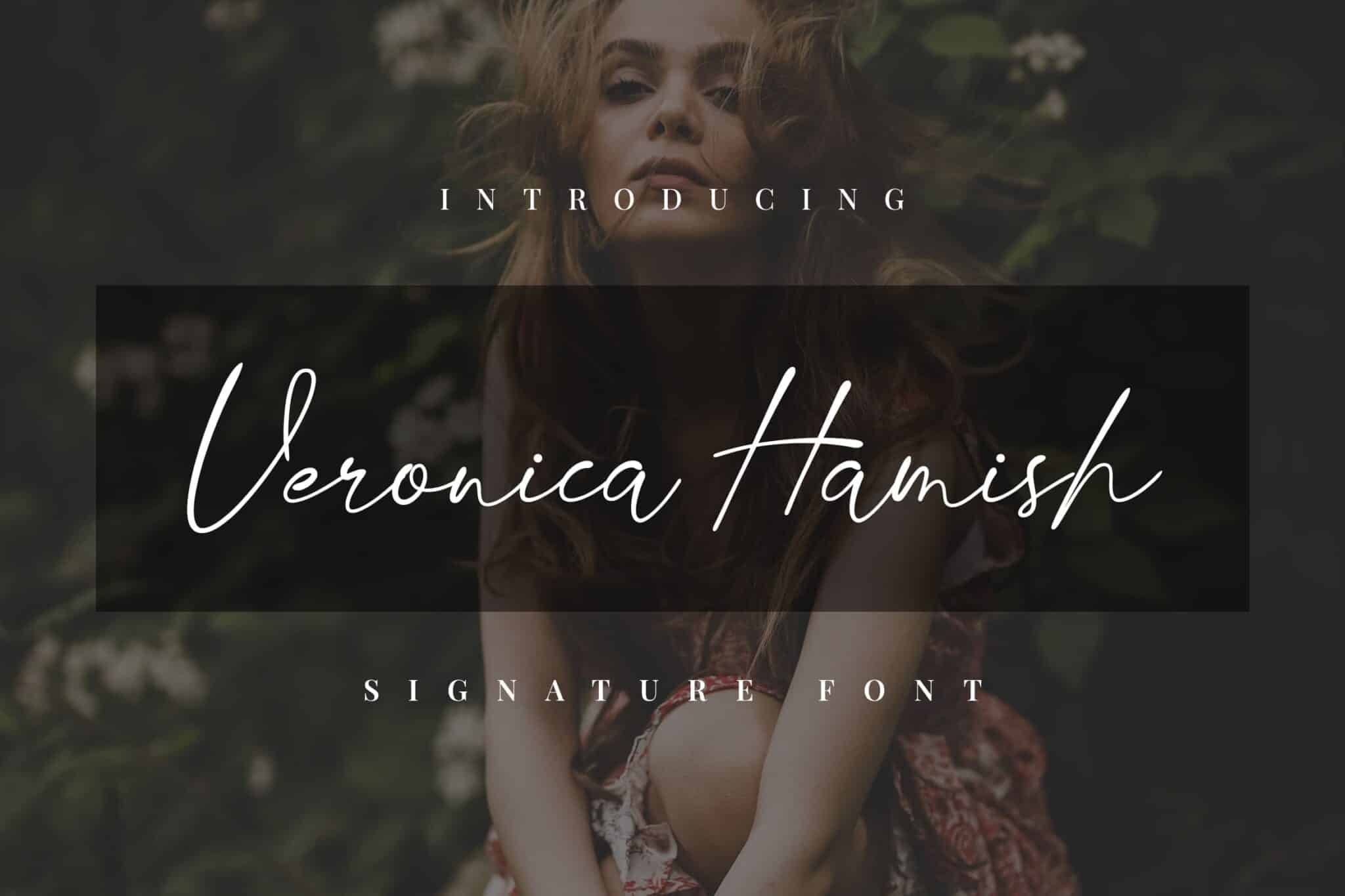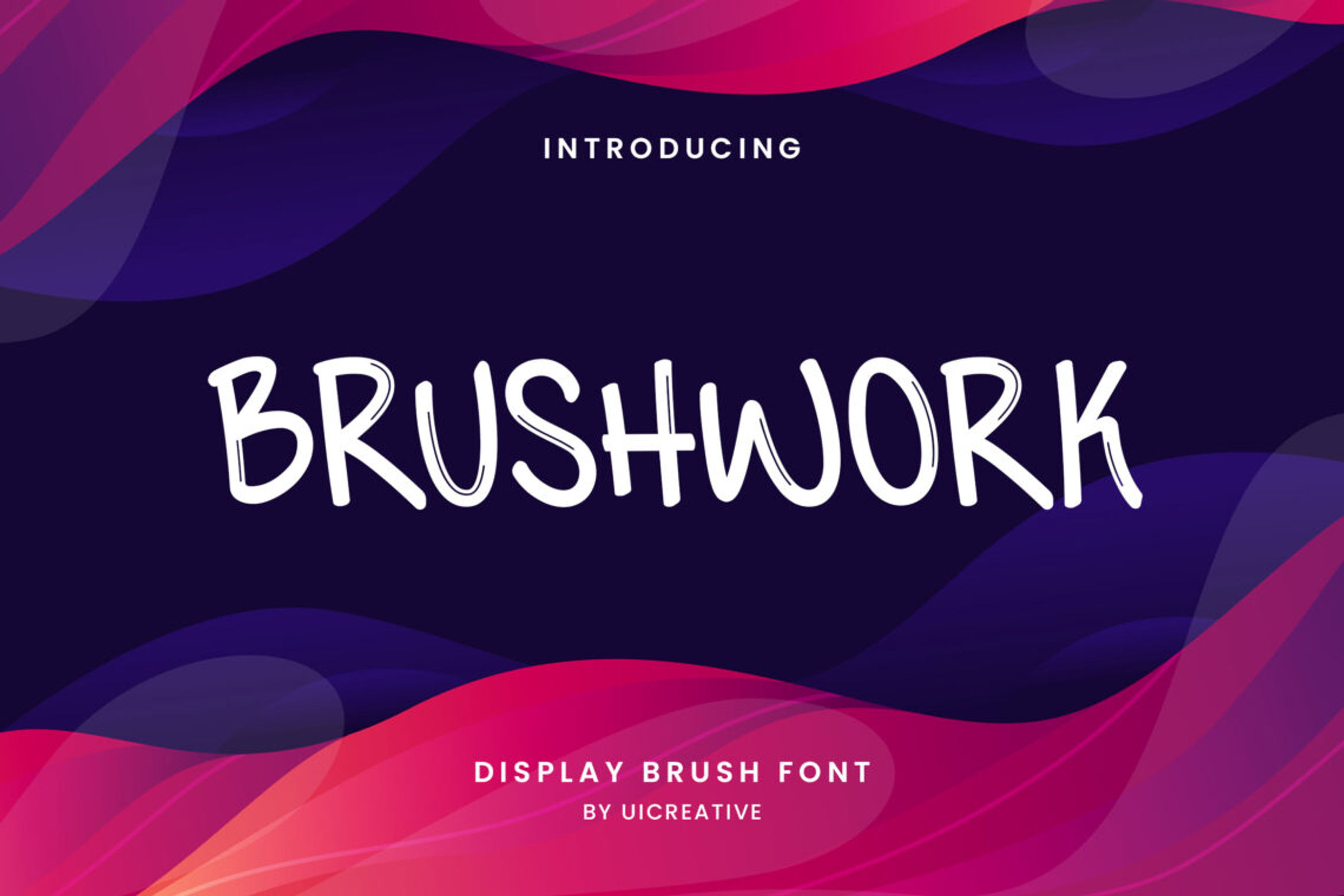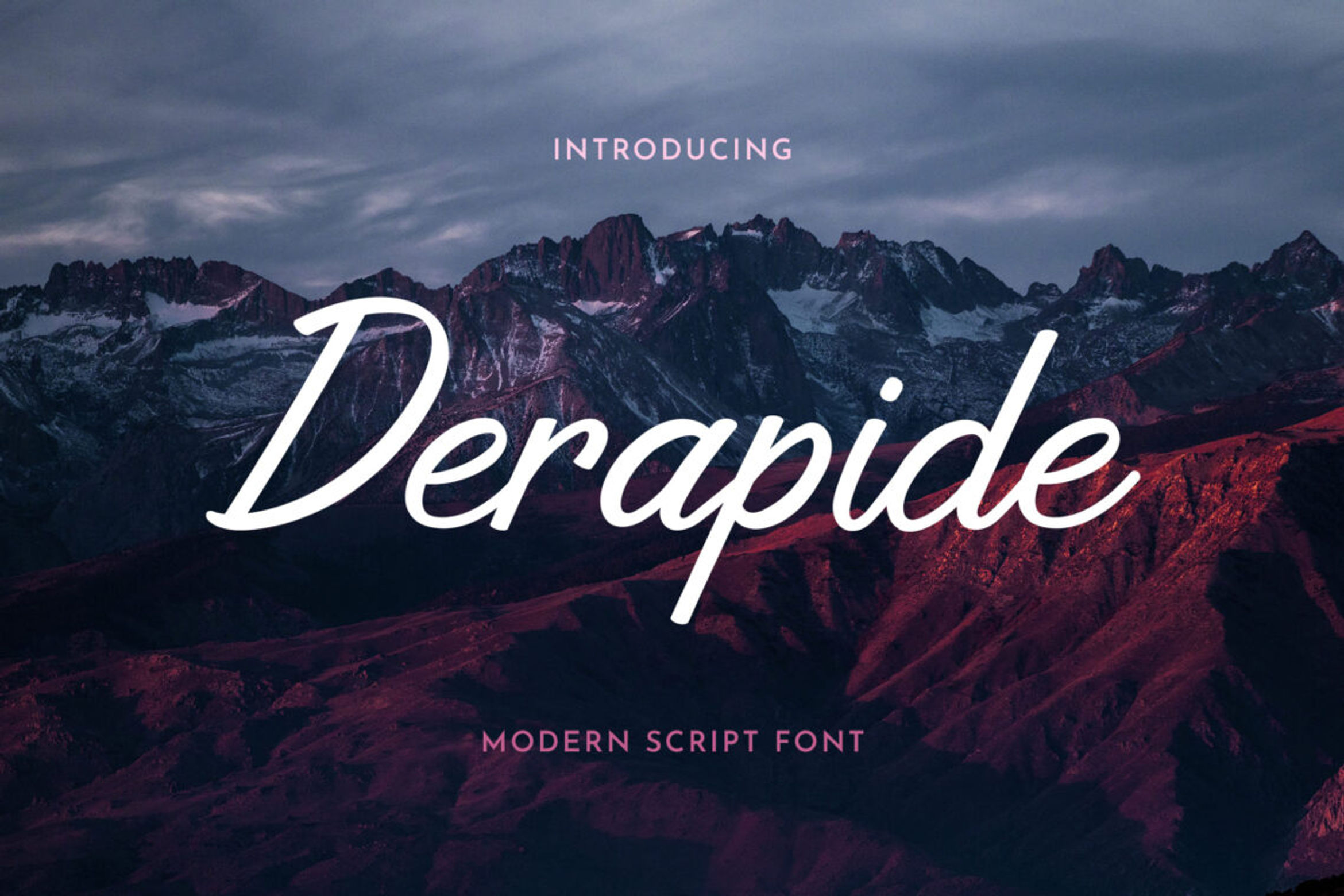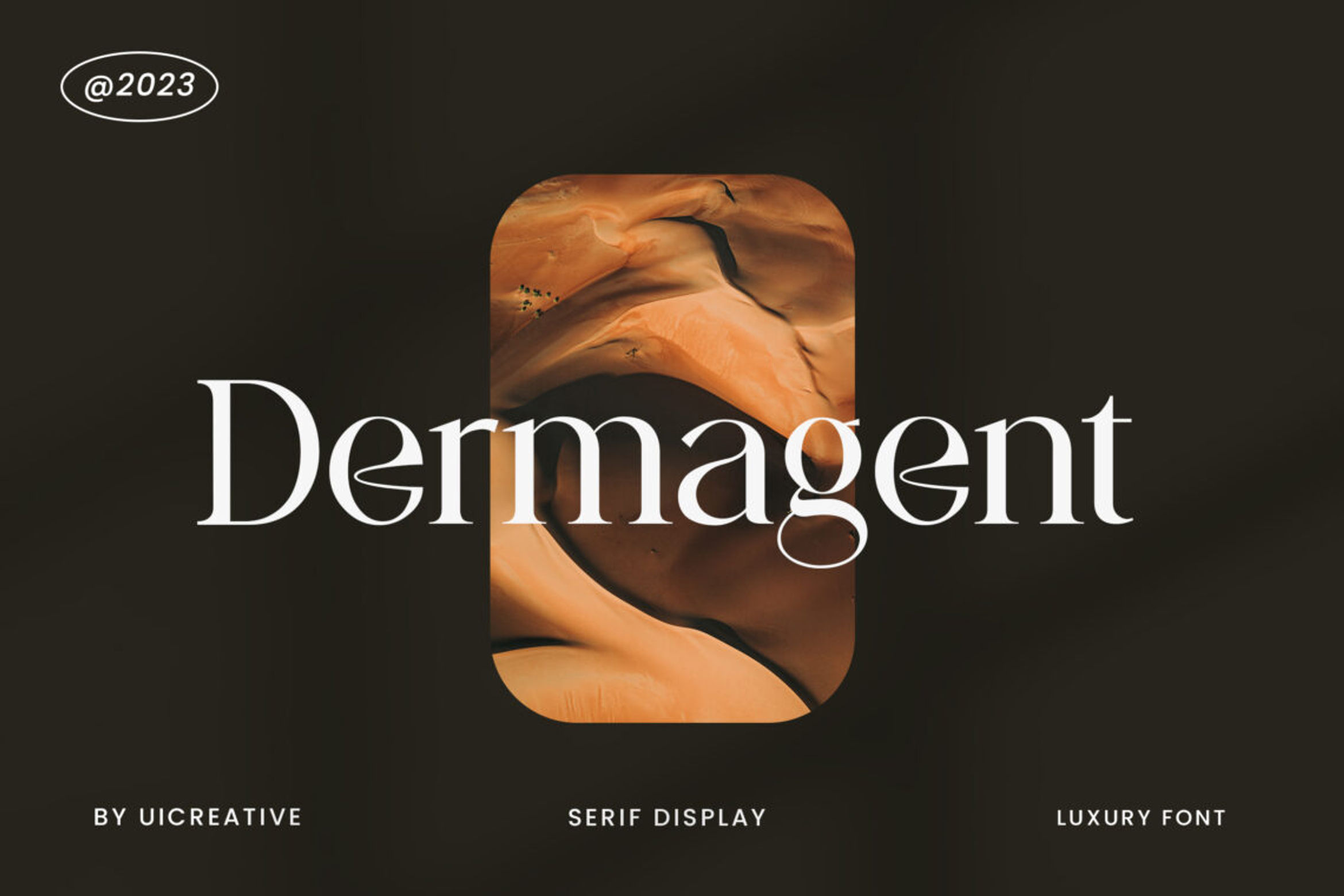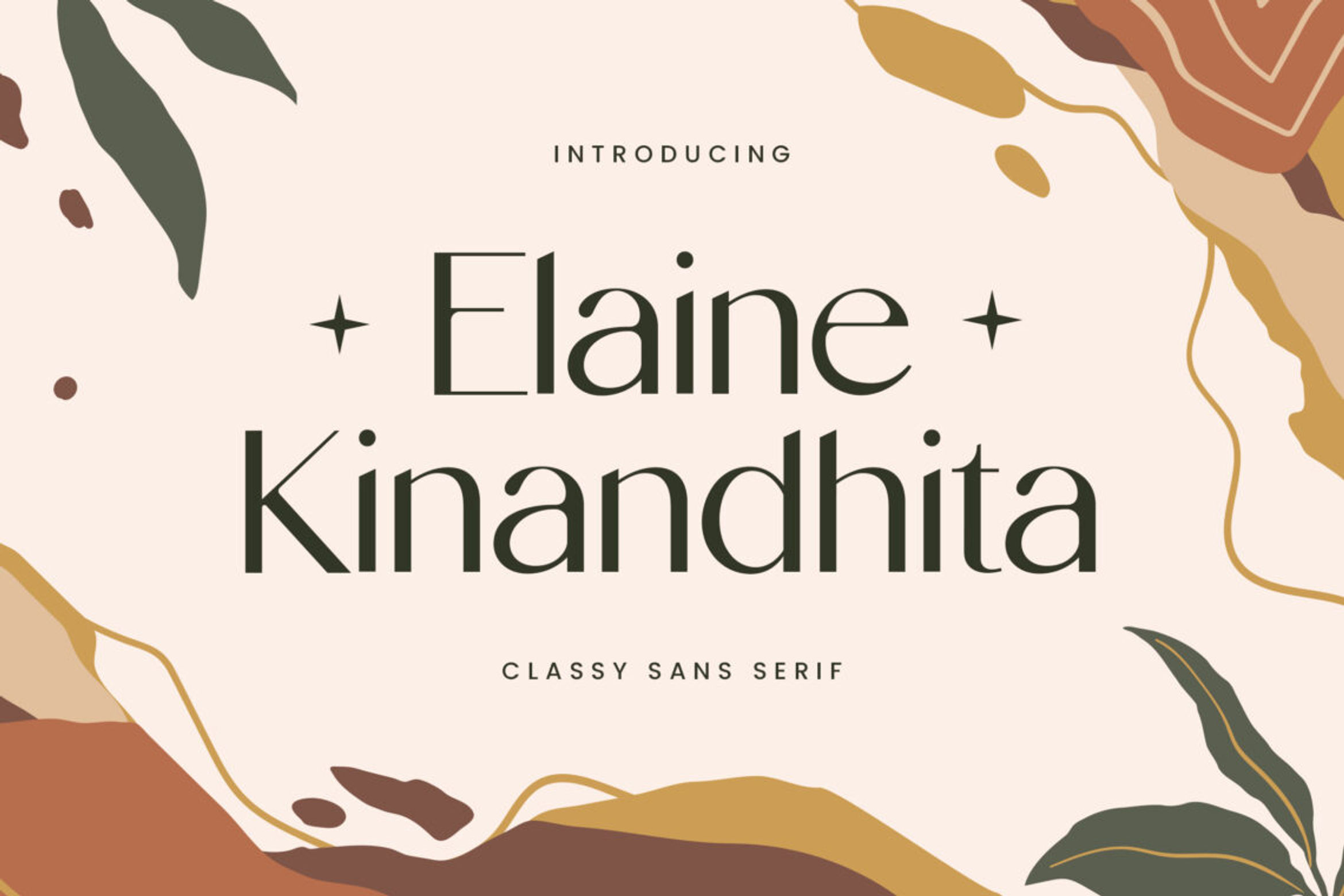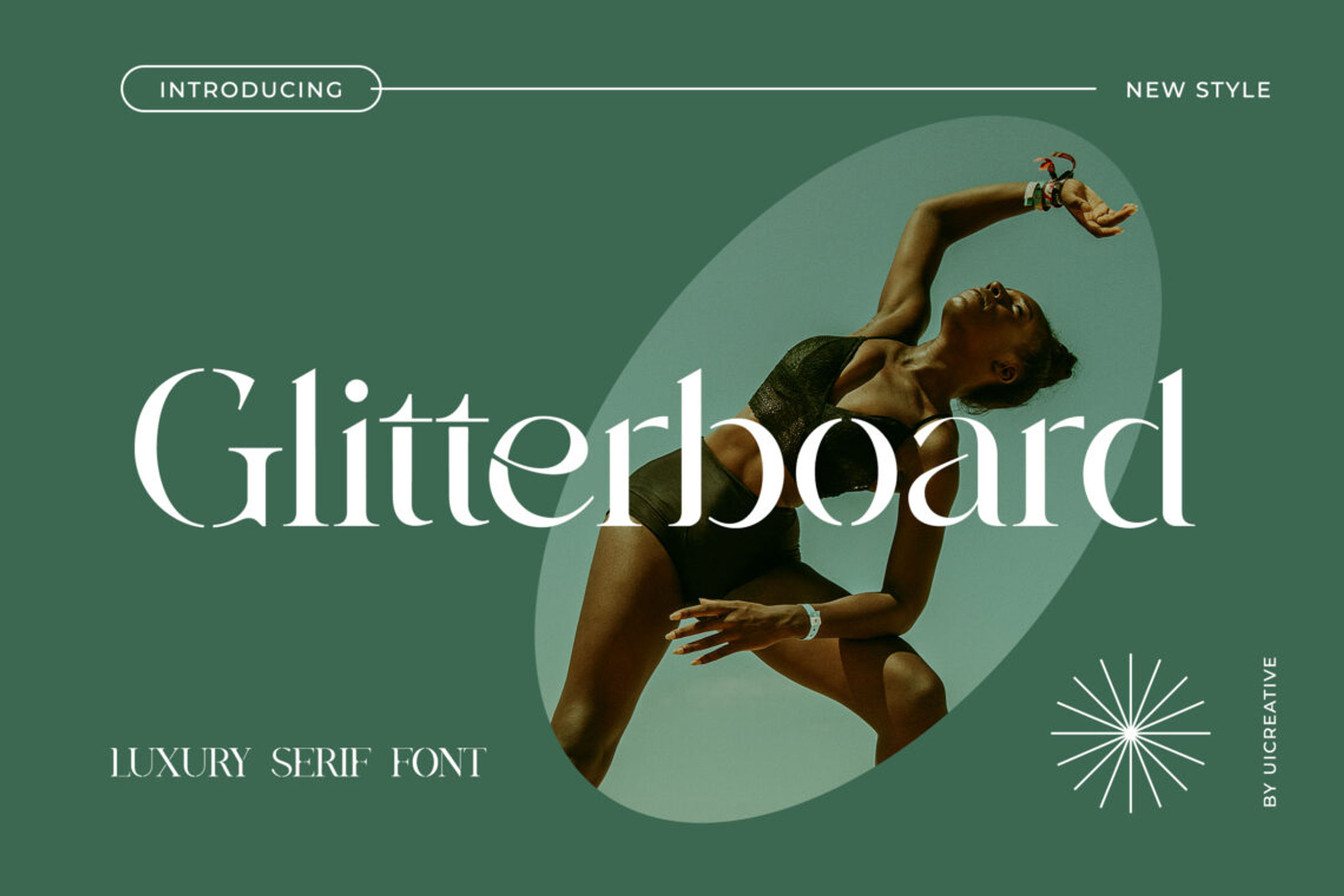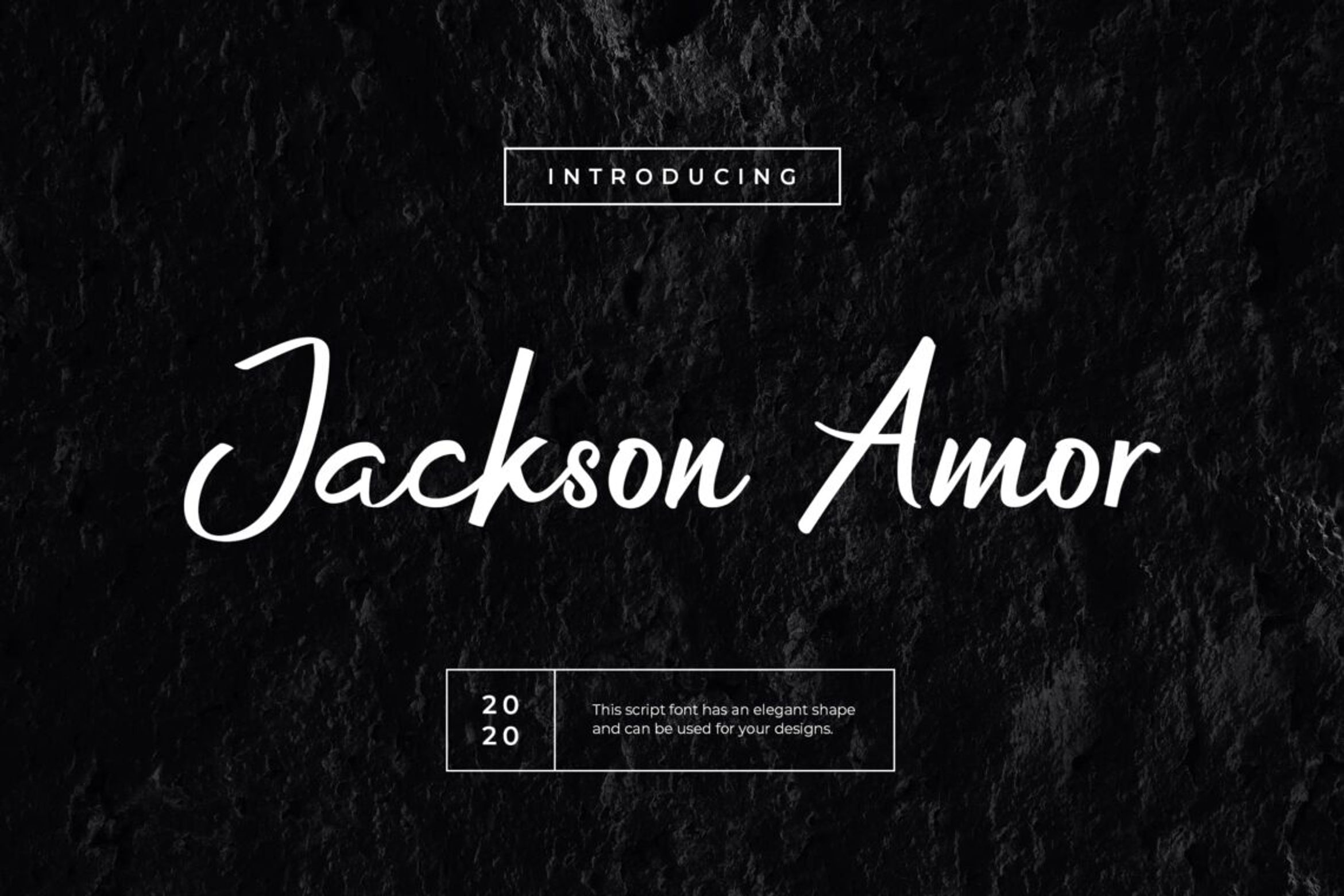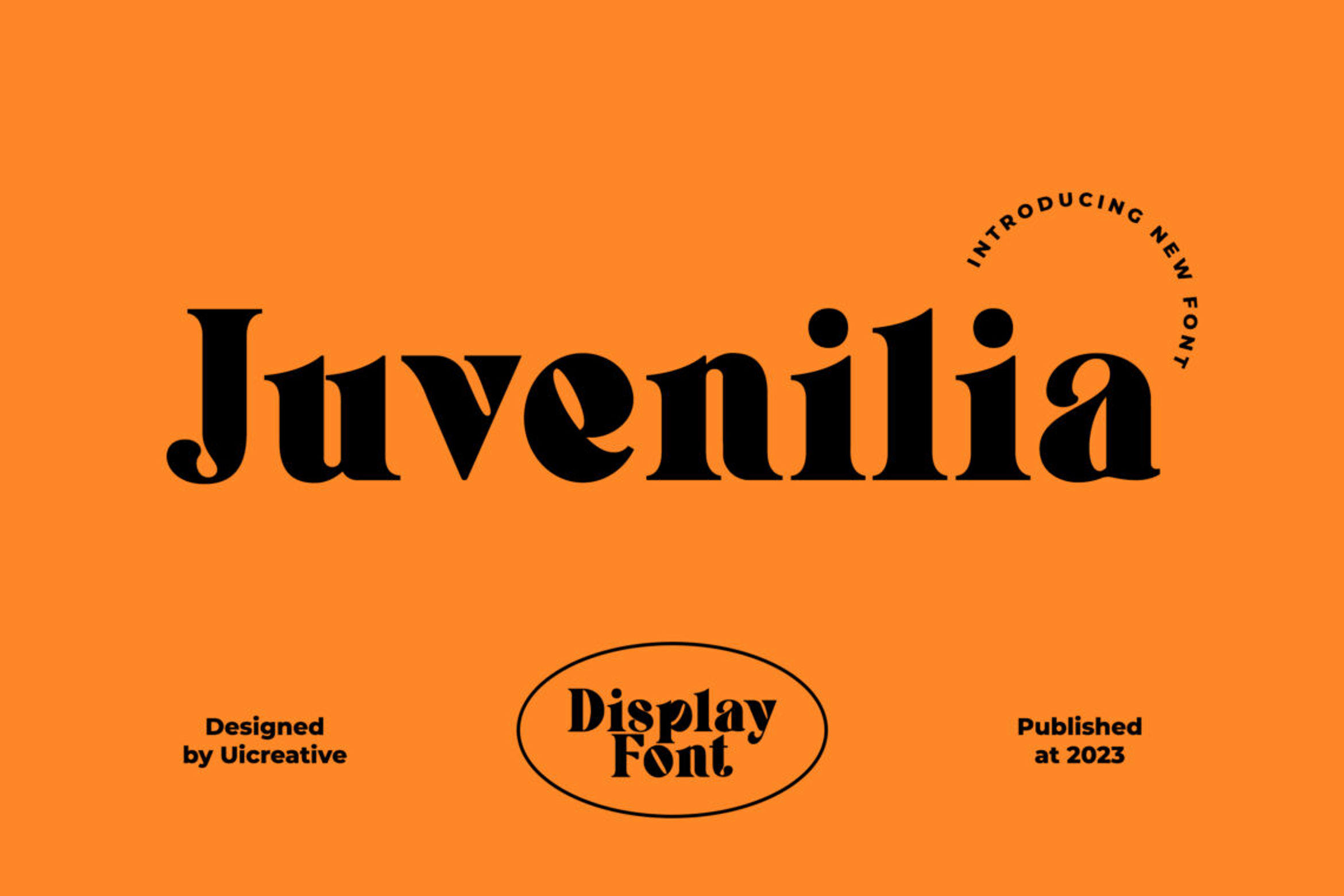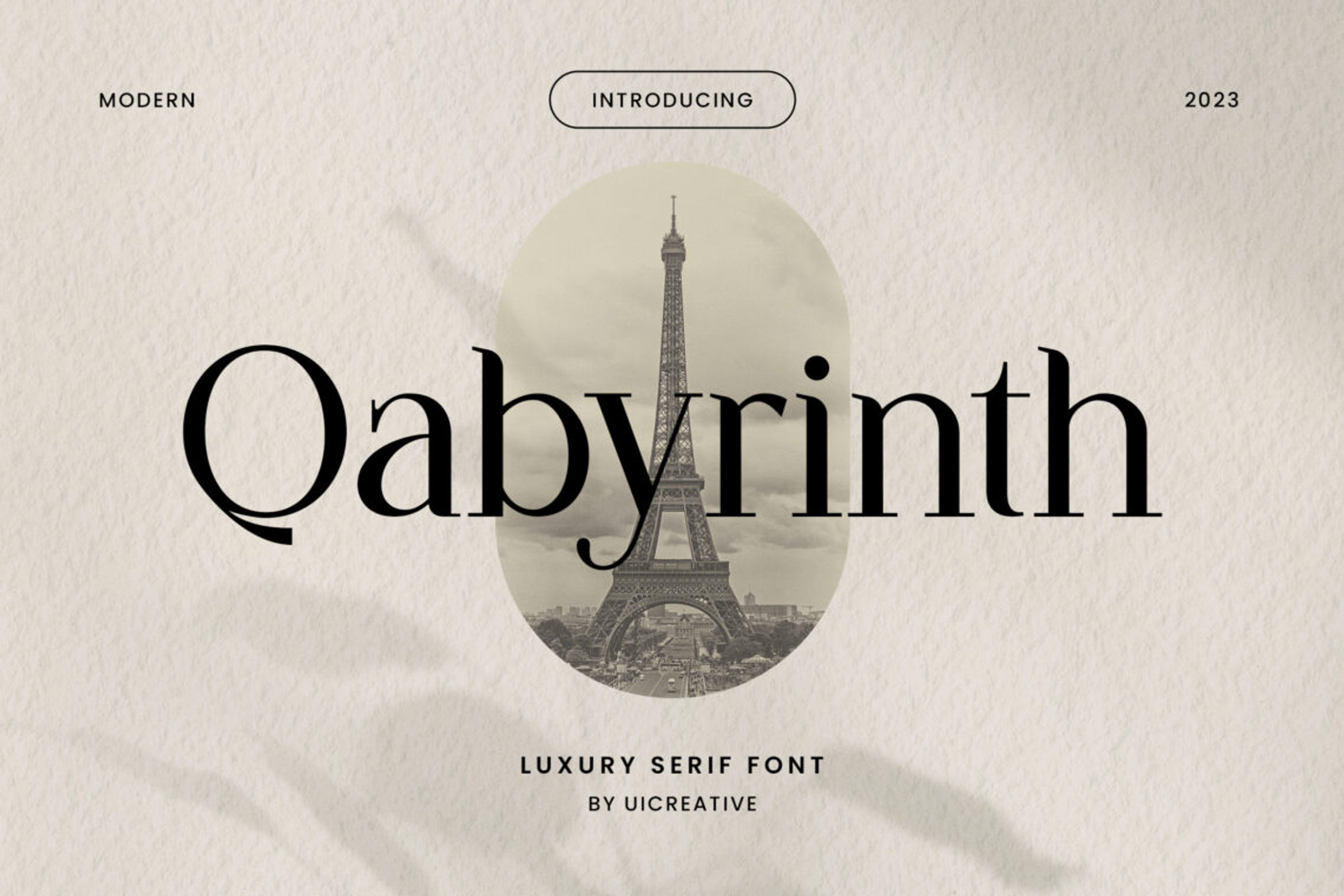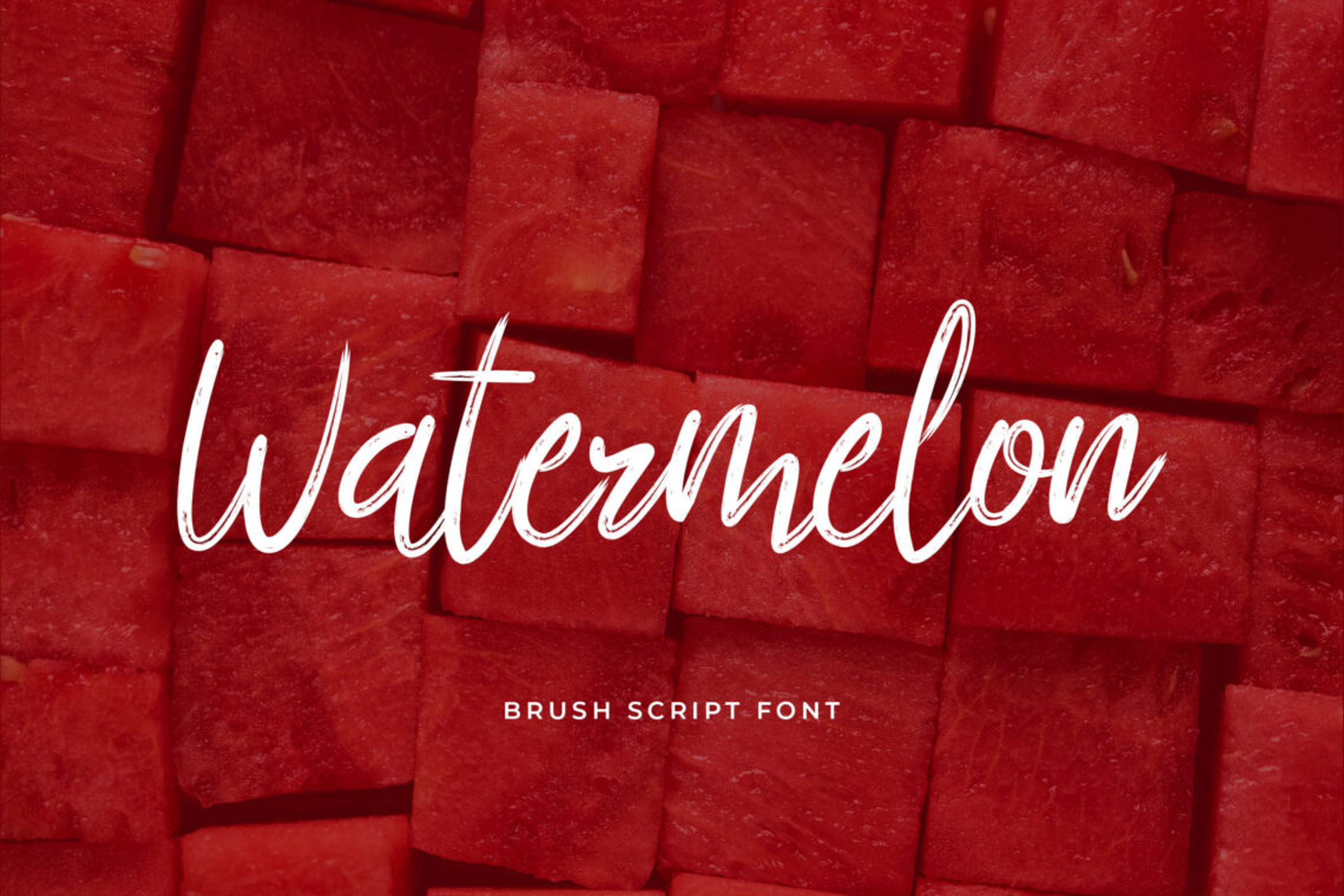
1. Gliterboard Luxury Serif Font
Gliterboard Luxury Serif Font
The luxury serif font for “Glitterboard” is whimsical and elegant, and it would look fantastic on posters or other physical things like t-shirts, mugs, and other items. This bold typeface is exceptionally readable and an excellent candidate for header use. The font collection contains all of the basic characters, including uppercase and lowercase letters, numerals, and punctuation.
2. Dermagent Luxury Serif Display Font
Dermagent Luxury Serif Display Font
Dermaget is a casual script font that would work wonderfully for any of your designs that have anything to do with spring. It is amazing and curvaceous and will undoubtedly lend a sense of femininity to your designs. It is simple, elegant, and incredibly fashionable all at the same time. This typeface has the ability to make almost any design appear fantastic, and it has the distinct impression of springtime about it.
3. Blackthorn Vintage Serif Font – Spring Font
Blackthorn Vintage Serif Font
The Blackthorn is a contemporary and easygoing font that would work wonderfully for various designs because of its versatility. Although it is quite thin and has a good design, the typeface may also be used for longer bodies of text, where it would shine the brightest. It is endearing, fashionable, and adaptable to a very high degree.
4. Juvenilia Modern Display Serif Font
Juvenilia Modern Display Serif Font
The font known as Juvenilia has a lively appearance that evokes images of springtime’s budding flowers. This chic typeface appears to have been handwritten and is very simple to set. The Juvenilia design is absolutely lovely and would look great on wedding invitations, t-shirts, and posters. This typeface can use for the purposes of composing posts on social media.
5. Qabyrinth Luxury Serif Font
Qabyrinth - Spring time font
The highly stylized calligraphy typeface known as Qabyrinth would be an excellent choice for use as a wedding font. The typeface is not the easiest to read, but it is quite attractive, which makes it an excellent option for wedding invites and signage. The package contains symbols, numerals, and letters in uppercase, lowercase, and mixed case.
6. Elaine Kinandhita Classy Sans Serif Font
Elaine Kinandhita
The classy sans serif font, Elaine Kinandhita, has a modern, amazing appearance. We have found it to be one of the spring fonts that best exemplifies playfulness, enjoyment, and a cheerful mood. For example, that would look great printed on beachfront cafe signage or summer t-shirts. It is available in three distinct styles, which are regular, bold, and italic respectively.
7. Brushwork Display Brush Font – Spring Font
Brushwork Display Brush Font
The Brushwork typeface exudes a sense of modern sophistication. The delicate brushstrokes and the flowing font give it a wonderfully romantic quality; as a result, it is an excellent choice for use in logos, quotations, and wedding invitations.
8. Springlake Calligraphy Font – Spring Font
Springlake Calligraphy Font - Spring font
The Springlake font is yet another joyful and adorable spring font, and it is number five on our list. It is handcrafted and has an aesthetic that is contemporary, fresh, and charming; it would look fabulous on all sorts of projects, from logos to posters. It would be especially suitable for use on Easter greeting cards and product packaging.
9. Rookie Fiesta Script Handwritten Font
Rookie Fiesta Script Handwritten Font
Rookie Fiesta is a lovely handwritten script created to be open, airy, and strong. It provides the required degree of freedom to designers while preserving usability. Overall, it has a modern design, with graceful curves and lines that aren’t quite straight. Because of its adaptability, Rookie Fiesta can be utilized appropriately in formal and informal contexts.
10. Renita Montes Signature Font
Renita Montes Signature Font
This is a unique font design for the spring season and is excellent for giving any design job a touch of beauty and liveliness. Your designs will stand out from the crowd thanks to the fresh and vivid sense that is imparted by the current calligraphic embellishments. The designs that are most successful when using this typeface are those that are inspires by nature or contemporary wellness.